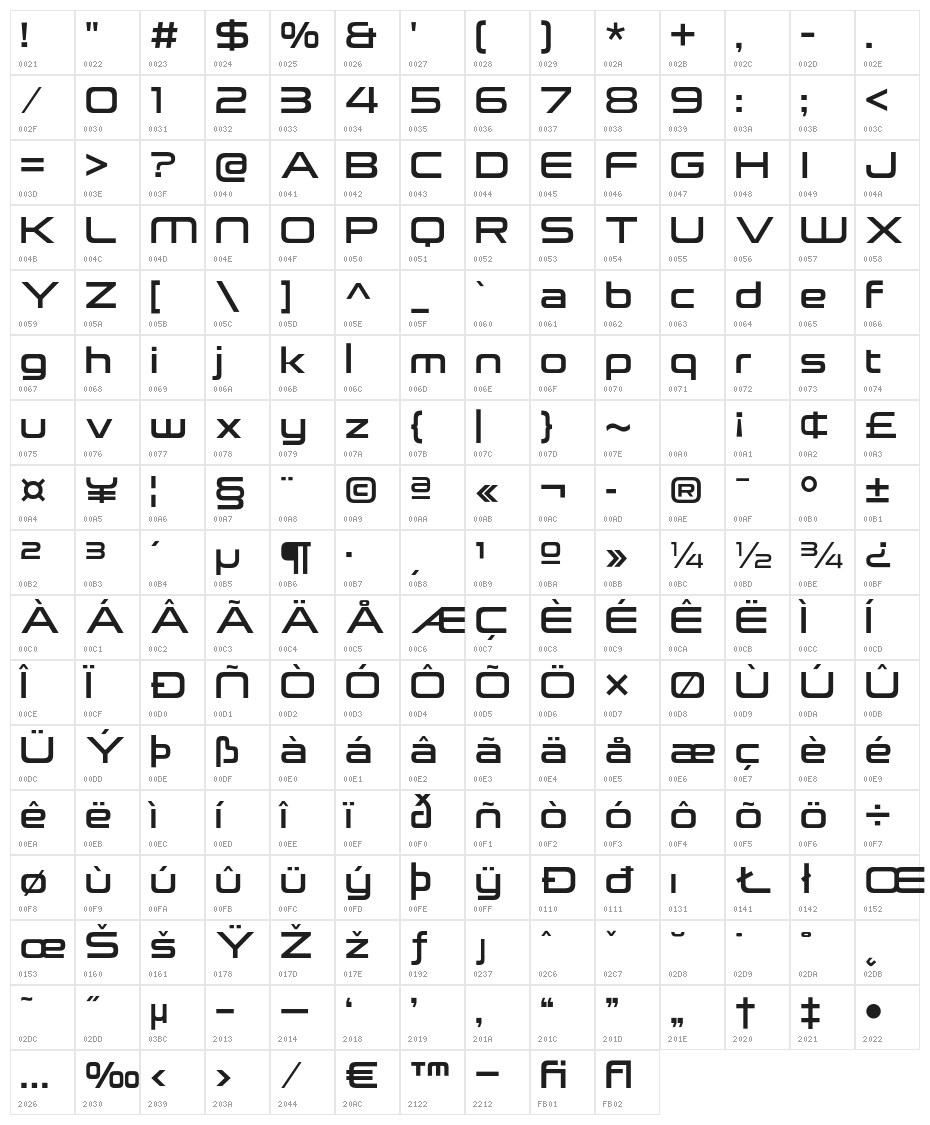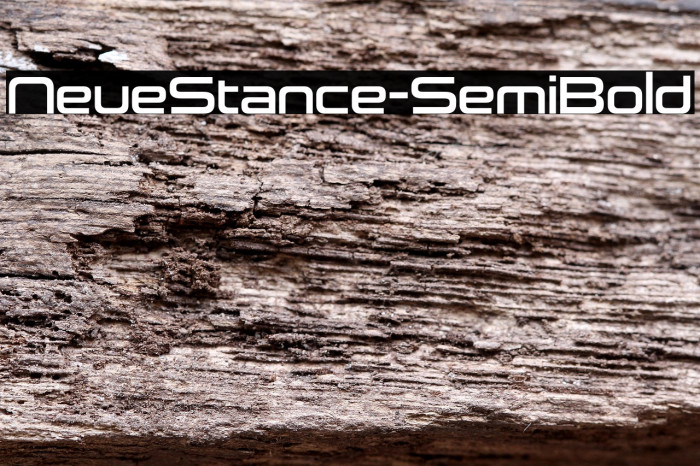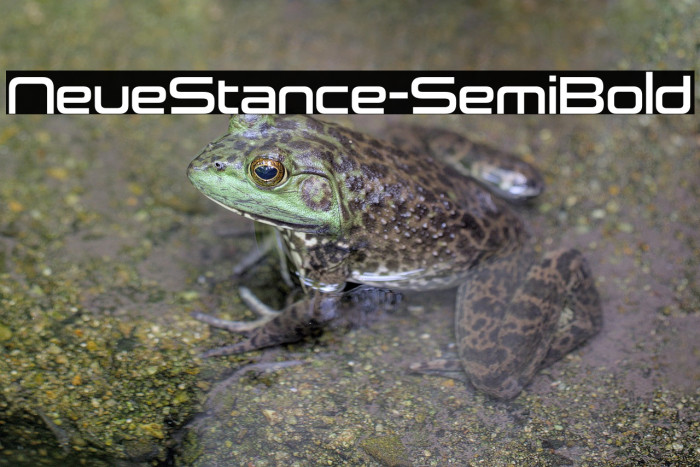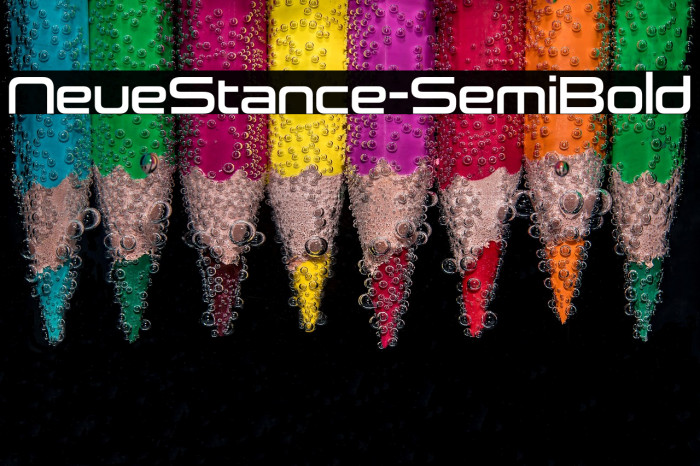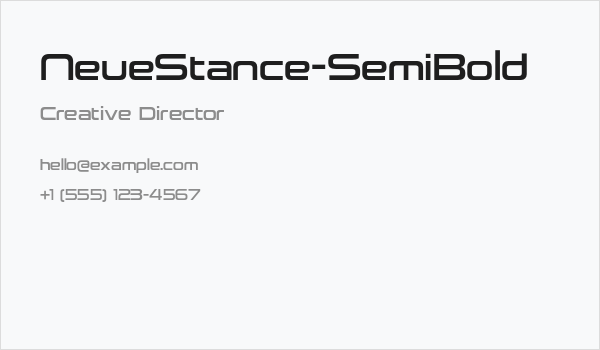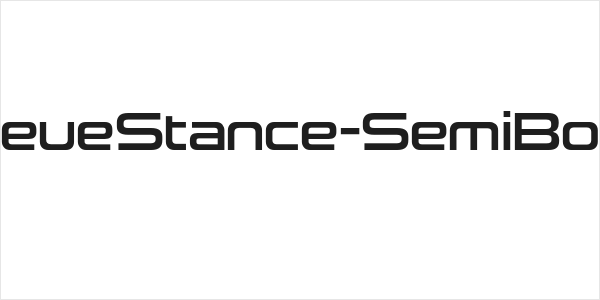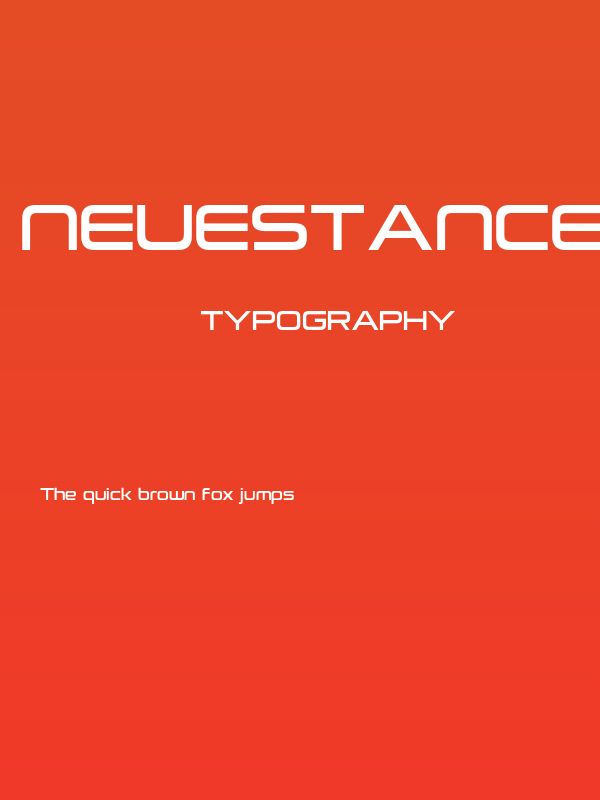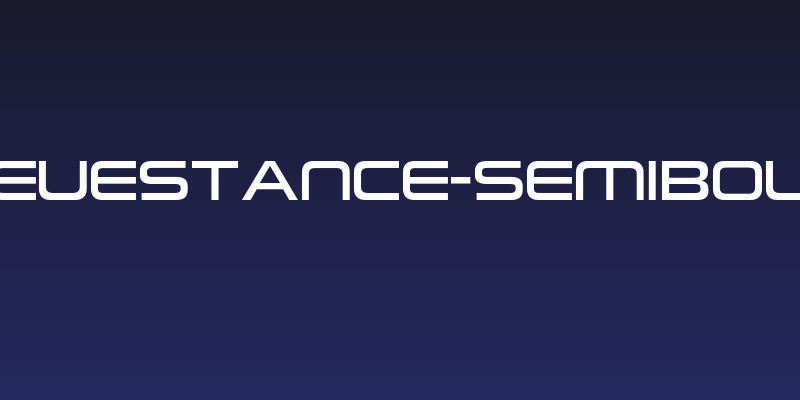
NeueStance-SemiBold Font
NeueStance-SemiBold Description
This font exhibits a modern and sleek design with a geometric structure. The characters are well-defined with a consistent stroke width, giving it a clean and professional appearance. The uppercase letters are bold and impactful, while the lowercase letters maintain a harmonious balance. The numerals are distinct and easy to read, making them suitable for various applications. Special characters are designed with precision, adding to the font's versatility. Overall, this font is ideal for projects that require a contemporary and polished look.
| Use Case | Headlines, Logos, Digital Interfaces |
| Proposed Projects | Ideal for branding, advertising, digital interfaces, and editorial design. |